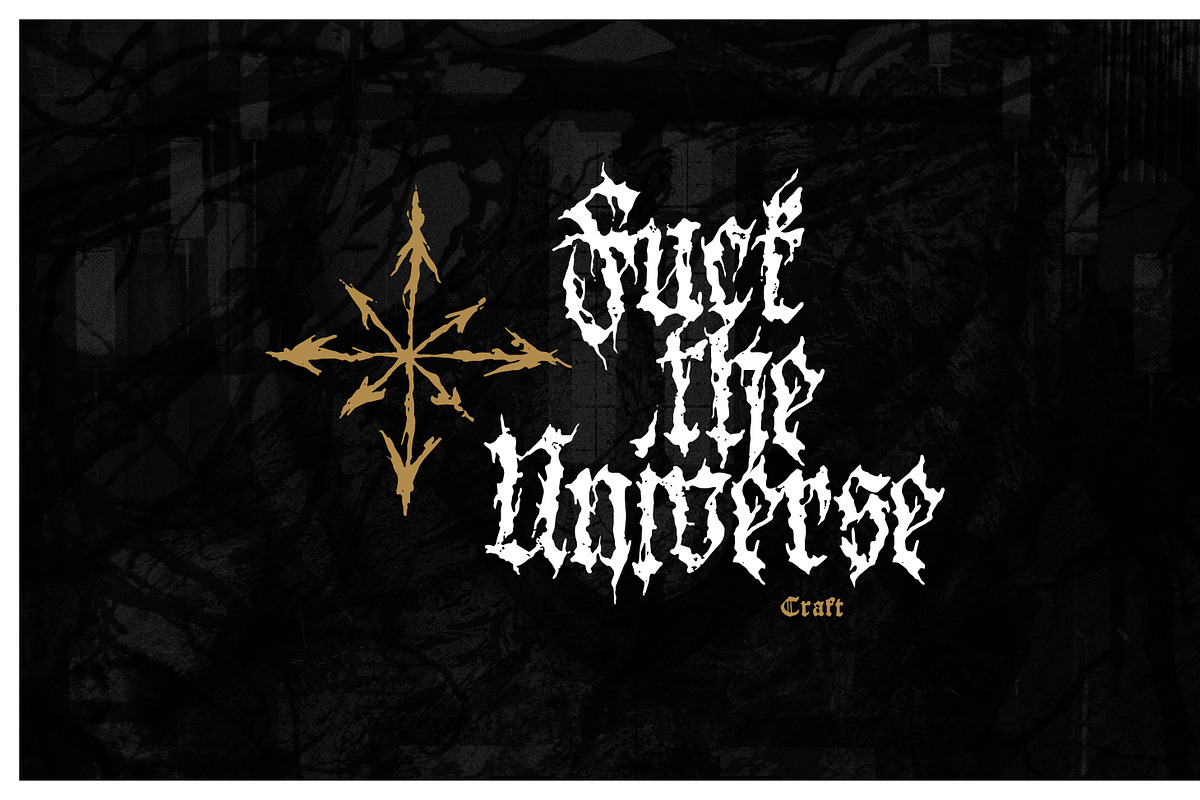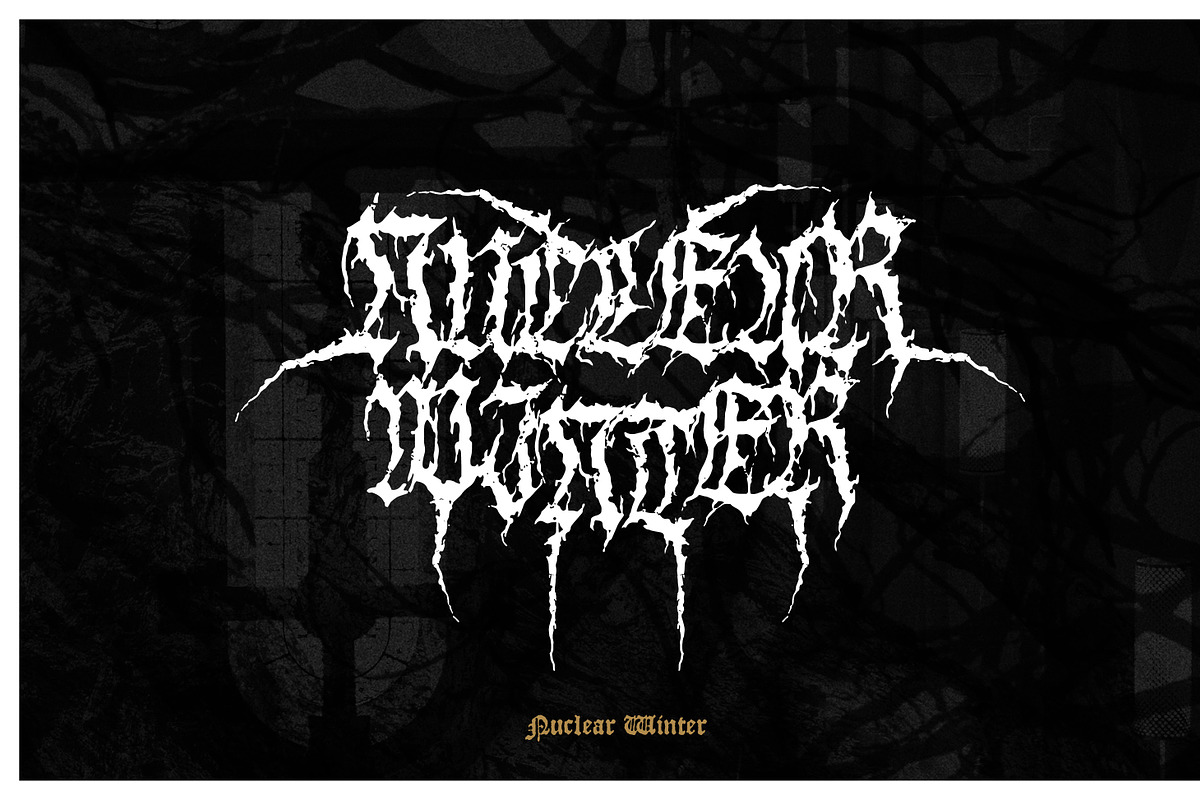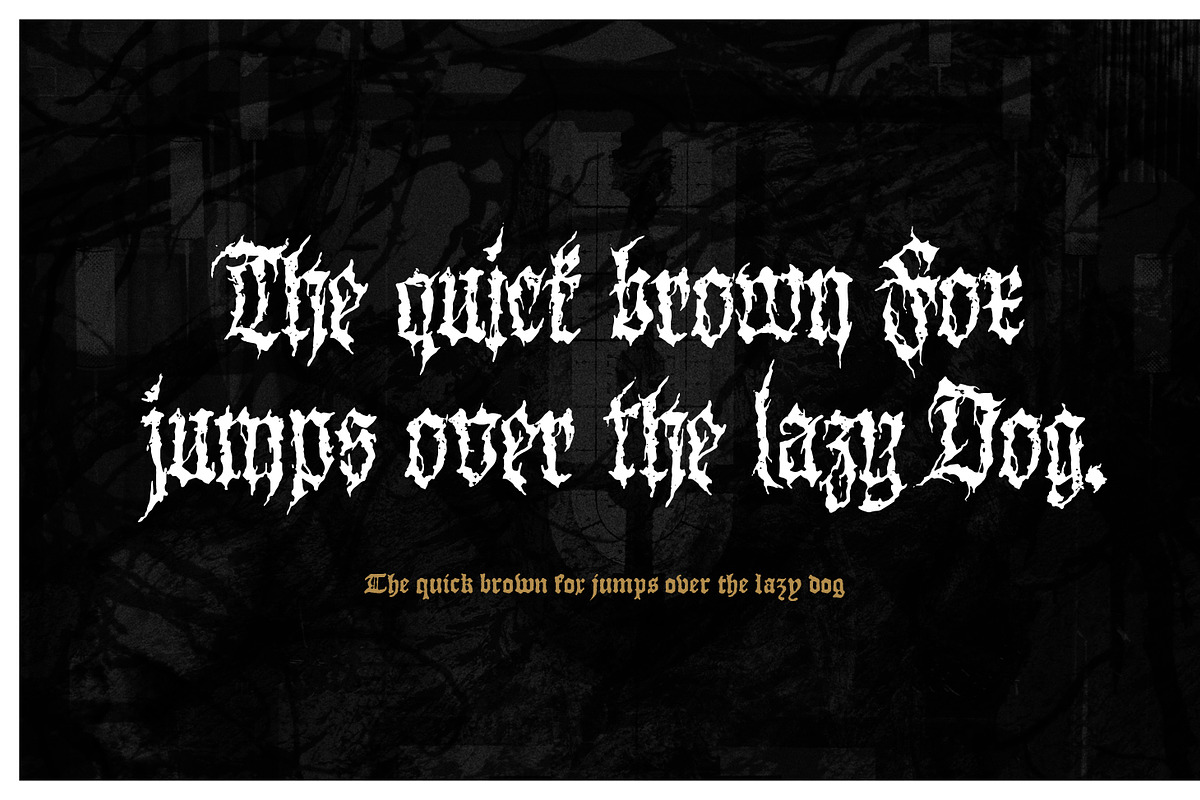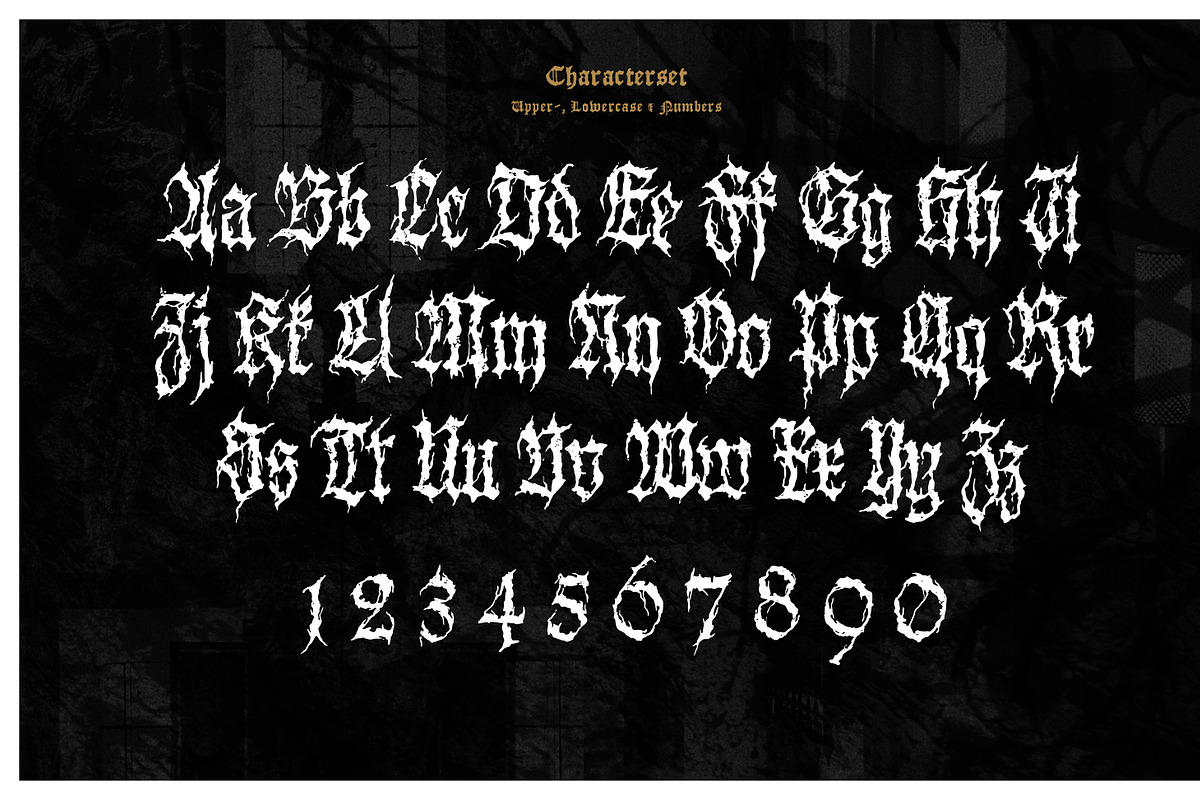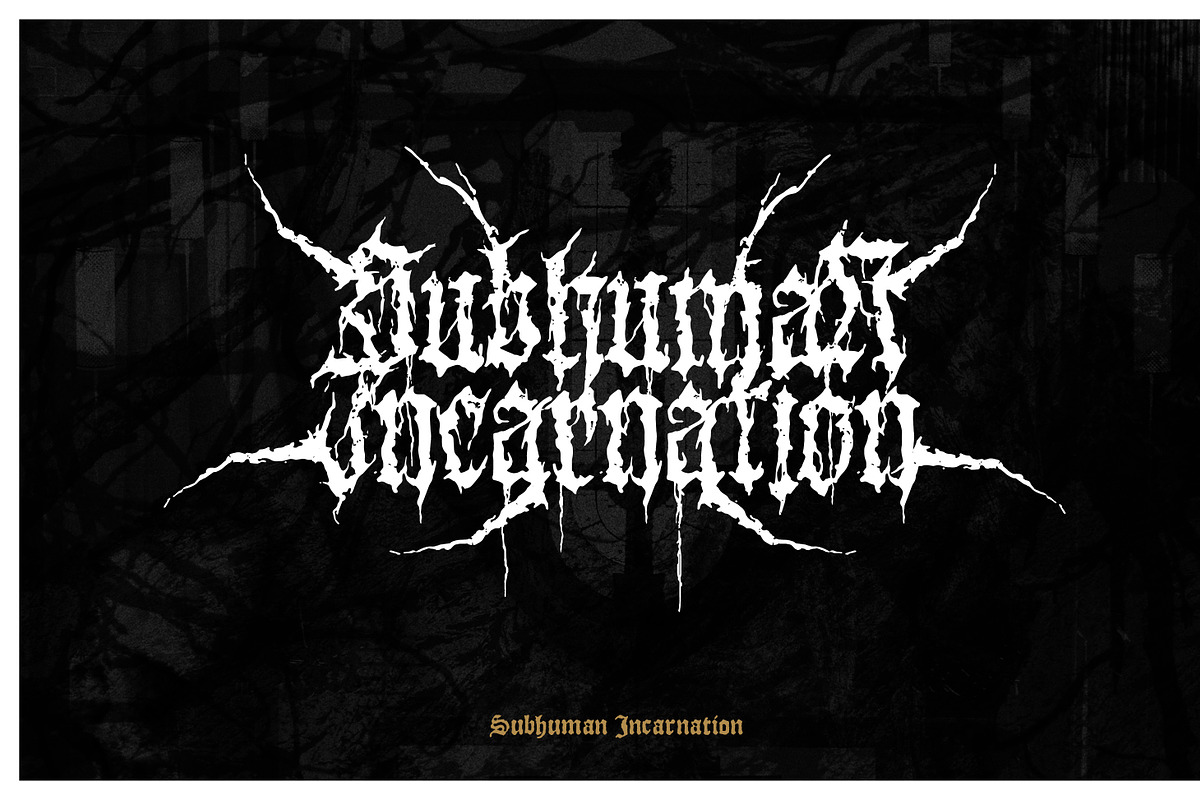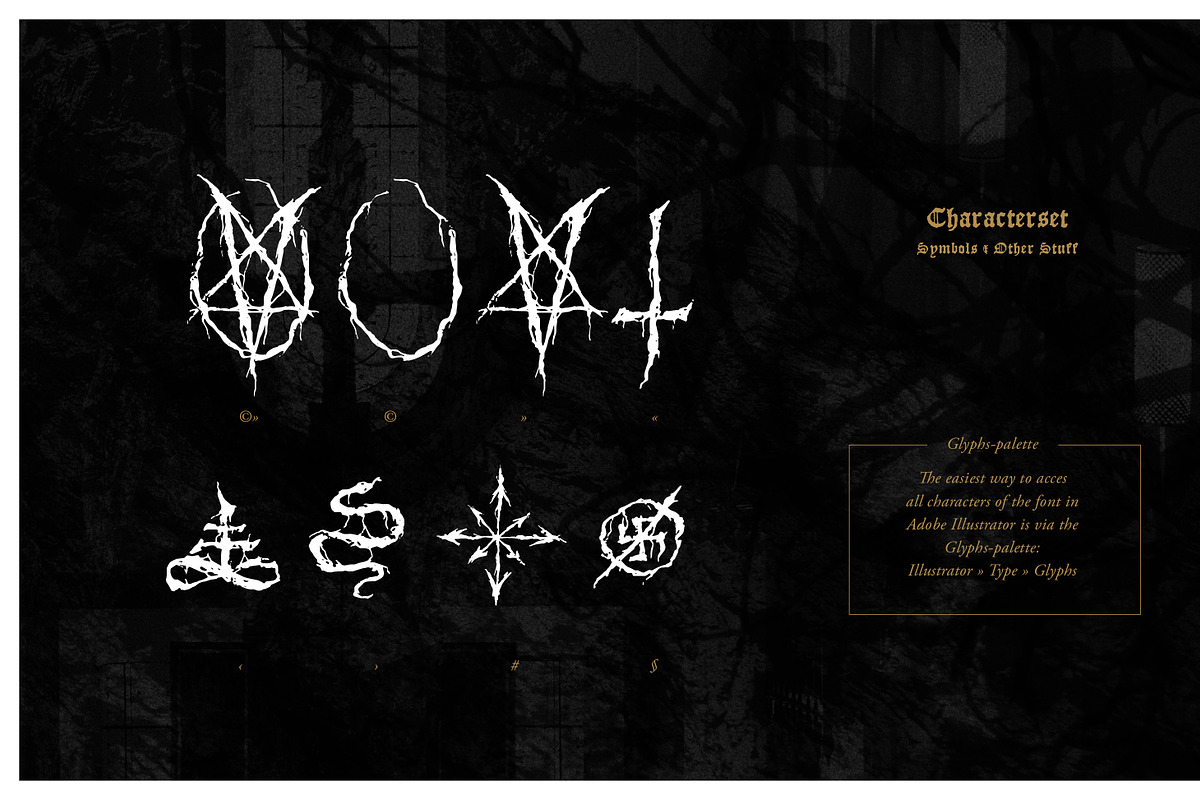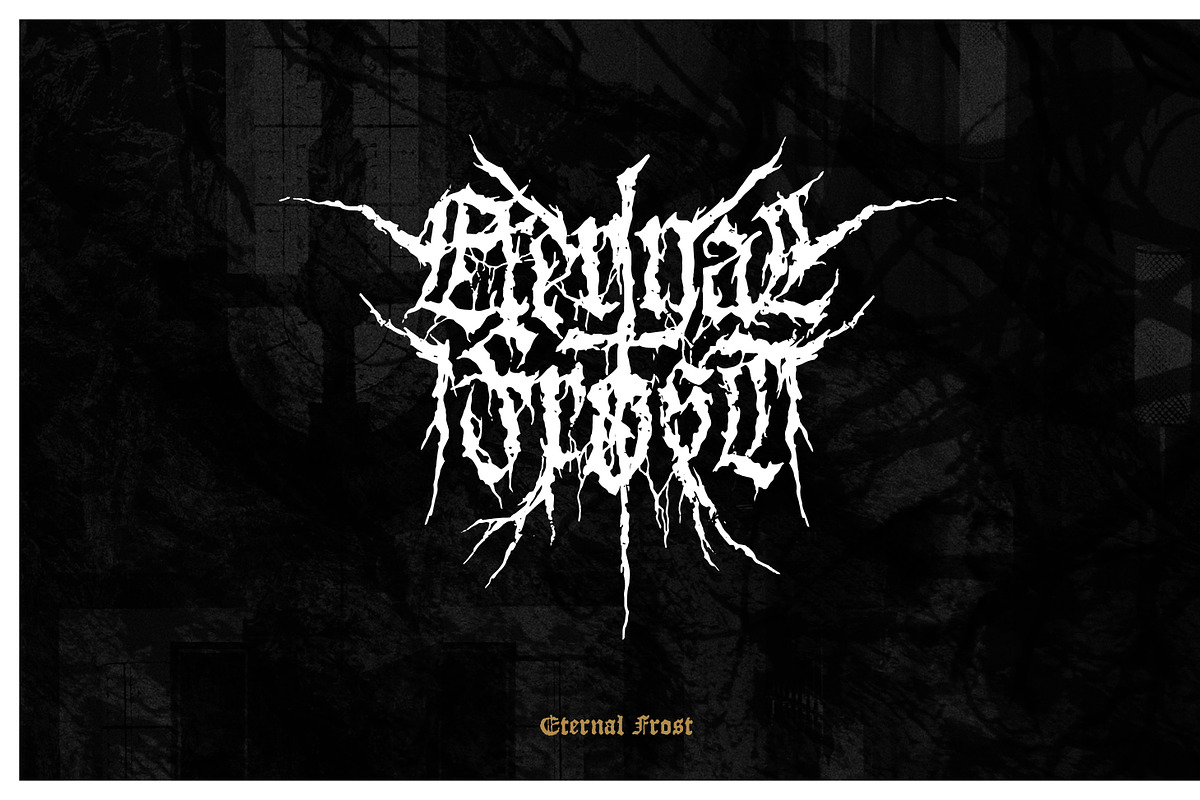
XXII Lvcifervm
The XXII Lvcifervm - font is an extreme logo font designed for extreme music. If you’re in love with death-, blackmetal, grindcore or the horror movie genre, you may find pleasure in using this font. It comes with an upper- and lowercase characterset, numerals, some punctuation and a bunch of drips and symbols used extreme music. Use it in your graphic-editing-application and be creative, play with it and find out what’s possible.